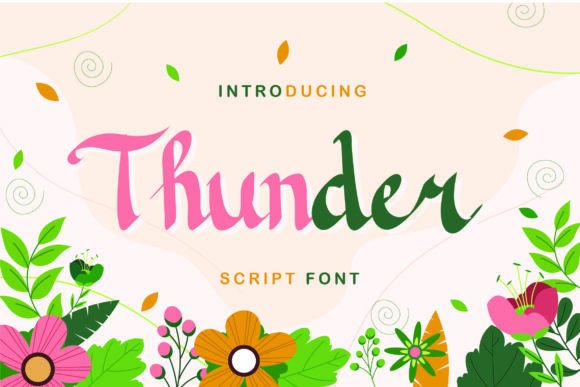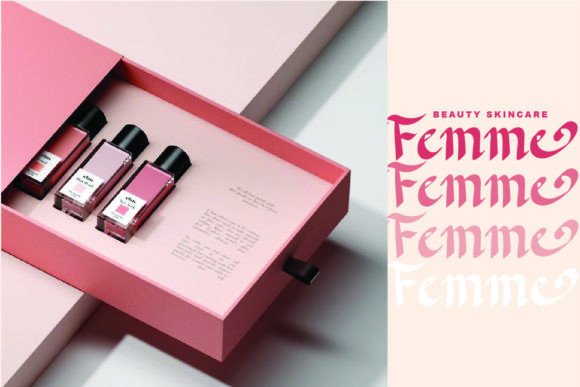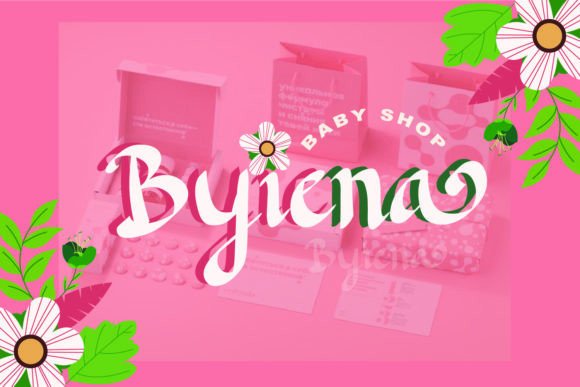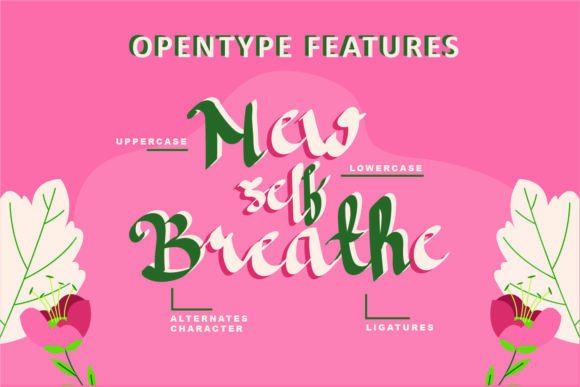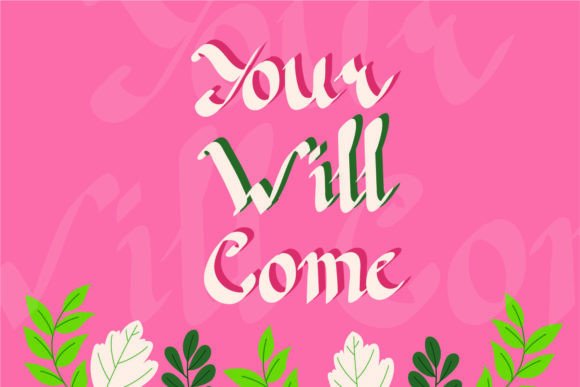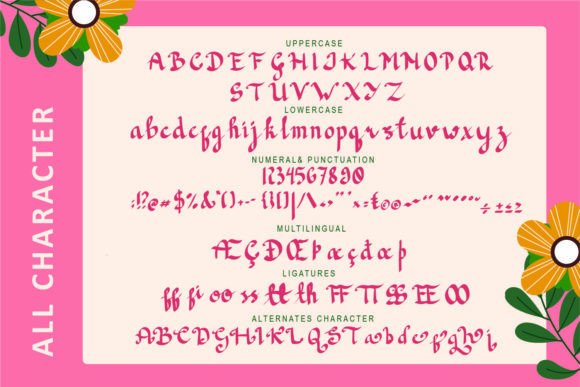
Thunder Font
About Thunder Font
Thunder is not just a font; it’s a playful script that brings a calligraphy style to your designs, adding beauty to invitations, greeting cards, branding materials, business cards, quotes, posters, and more. The playful script design of Thunder makes it a versatile choice for a variety of creative projects.
The beauty of Thunder lies in its playful and flowing script. The characters dance with a sense of joy and spontaneity, making it a delightful choice for projects that demand both playfulness and elegance. Whether you’re designing invitations for a special event or creating business cards that make a lasting impression, Thunder ensures that your designs stand out with a unique charm.
In branding materials, Thunder becomes a lively and delightful choice. Its playful yet sophisticated script adds a unique touch that sets your brand apart, making it memorable and visually appealing. The calligraphy style brings an air of elegance to your visual identity.
For quotes and posters, Thunder’s playful script adds a layer of charm. The flowing characters turn your words into visually striking statements, capturing attention and conveying a sense of creativity and style.
By including Thunder in your font collection, you’re not just adding a typeface; you’re selecting a design element that infuses your projects with playfulness and calligraphic beauty. Thunder is designed to bring a dynamic and lively quality to your creative endeavors.
In essence, Thunder is a font that goes beyond being a tool. It’s an expression of playful calligraphic charm that transforms your invitations, branding materials, and creative projects into visually stunning and memorable works of art.